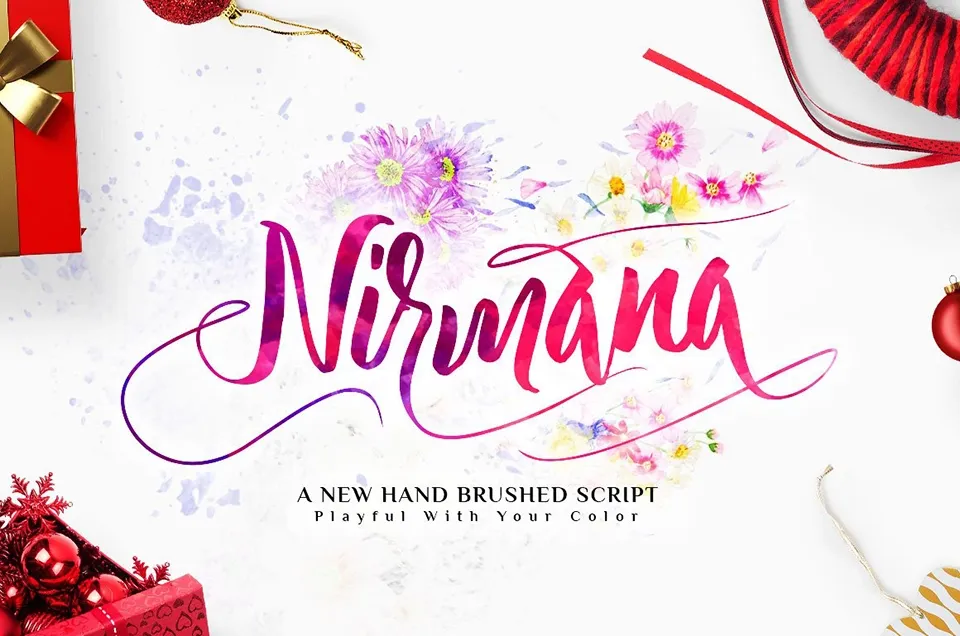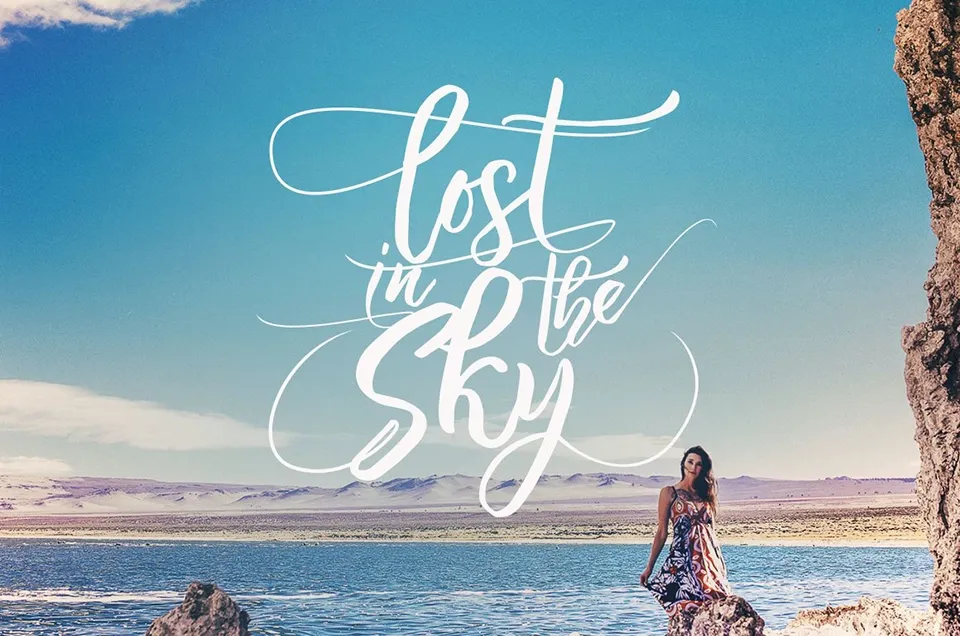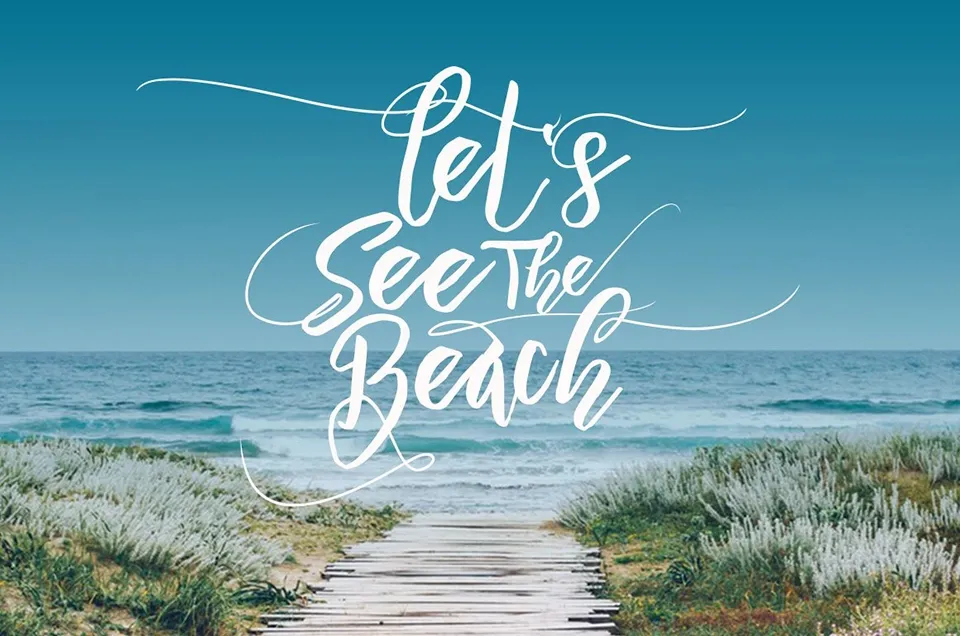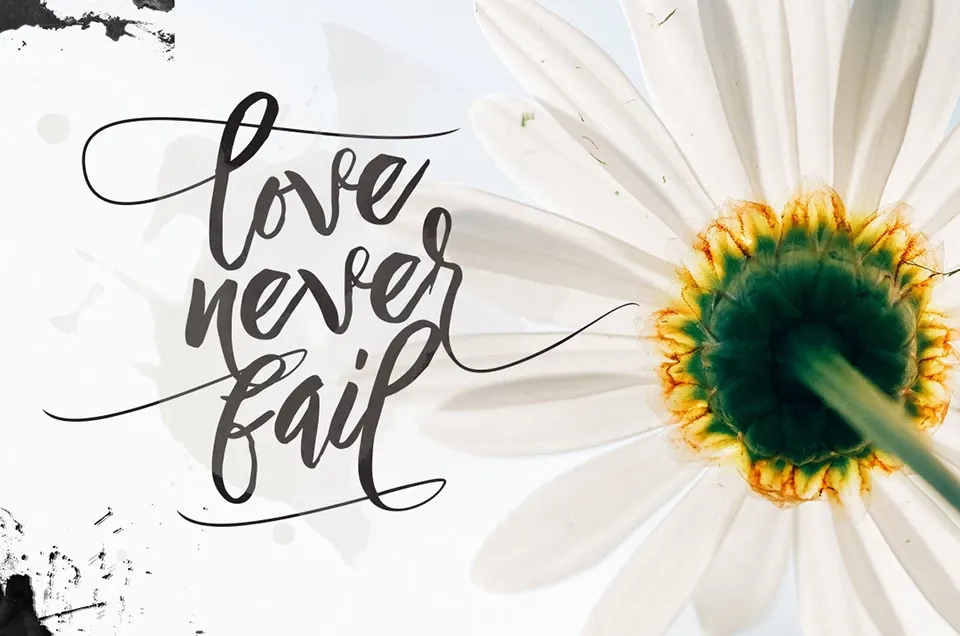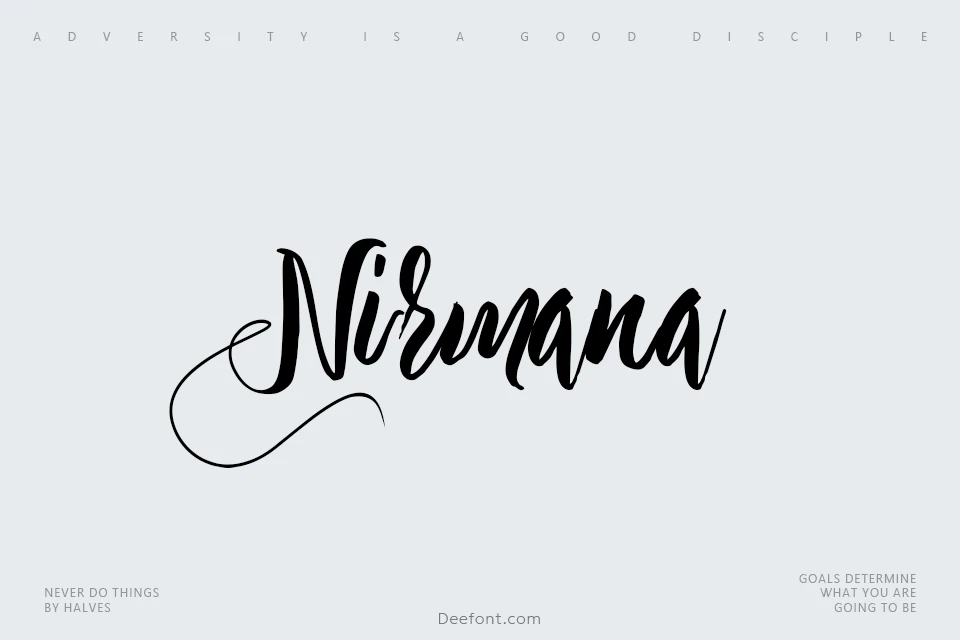
Nirmana Calligraphy Font
Nirmana Script Font is a hand-brushed script typeface from Nirmana Visual. This font features a playful yet elegant style, characterized by its authentic calligraphy and natural brush strokes. With flowing lines and stylish swashes, it offers a beautiful combination of timeless elegance and handcrafted charm. Ideal for branding, invitations, logos, and other projects requiring a distinctive and artistic touch, Nirmana Script brings personality and visual appeal to your designs, making text feel vibrant and expressive. It’s designed to be playful with color, adding a unique flair to creative work.